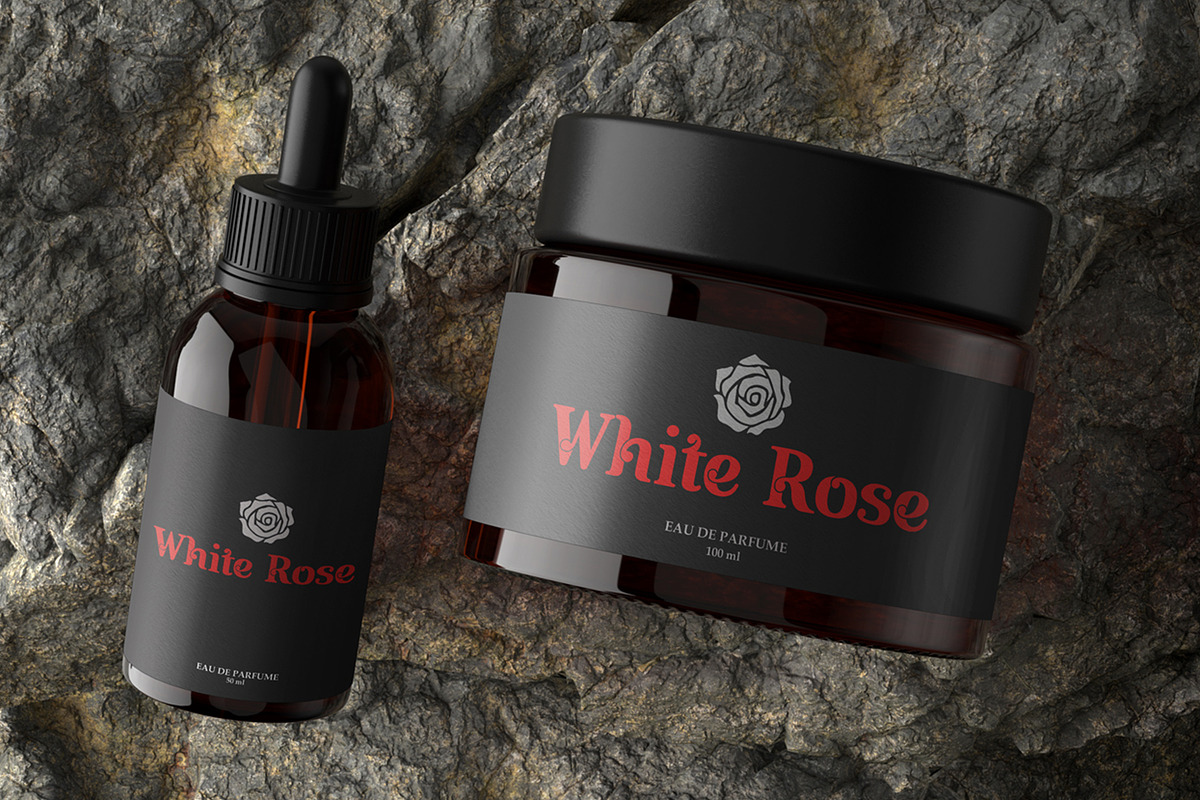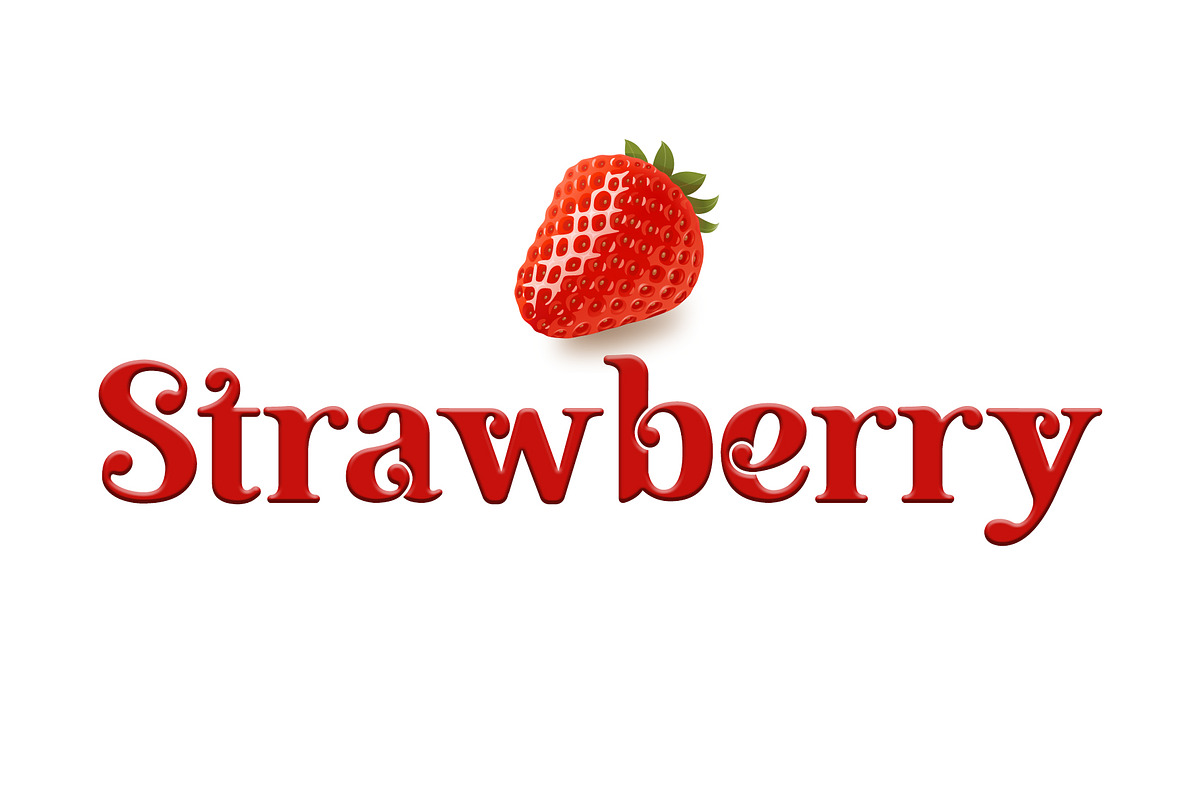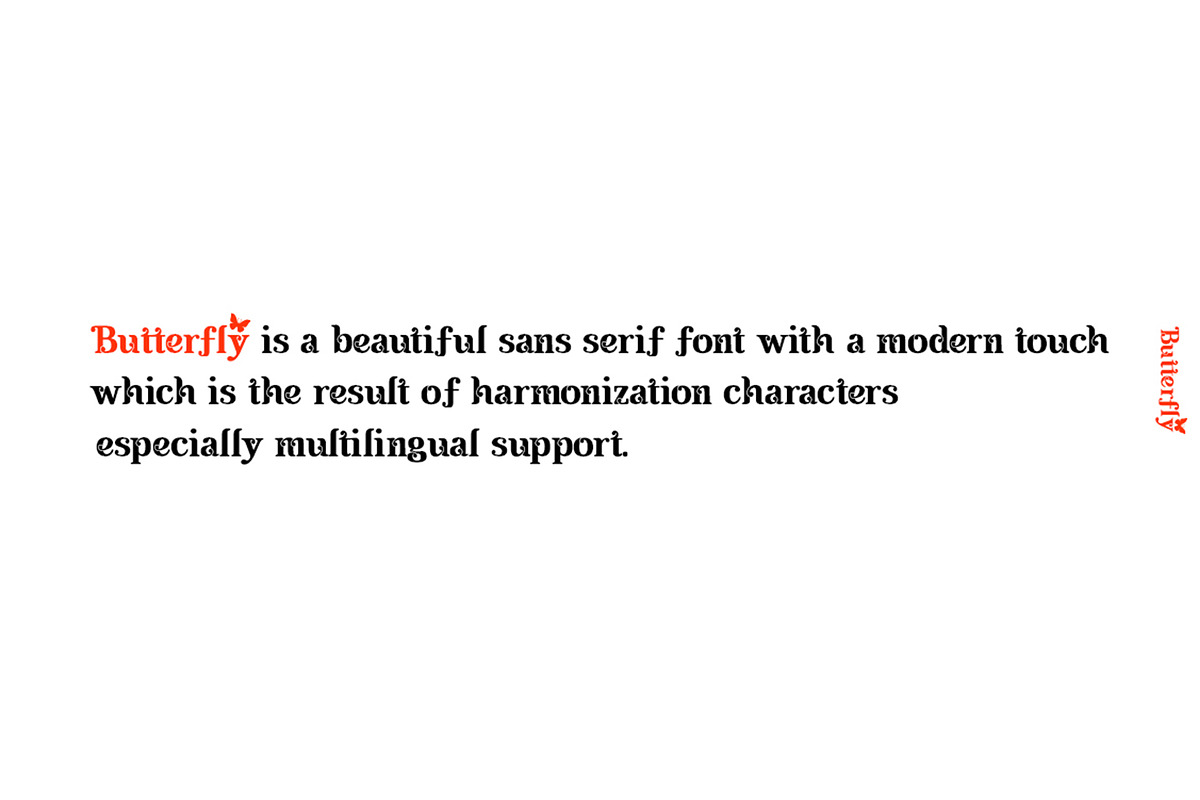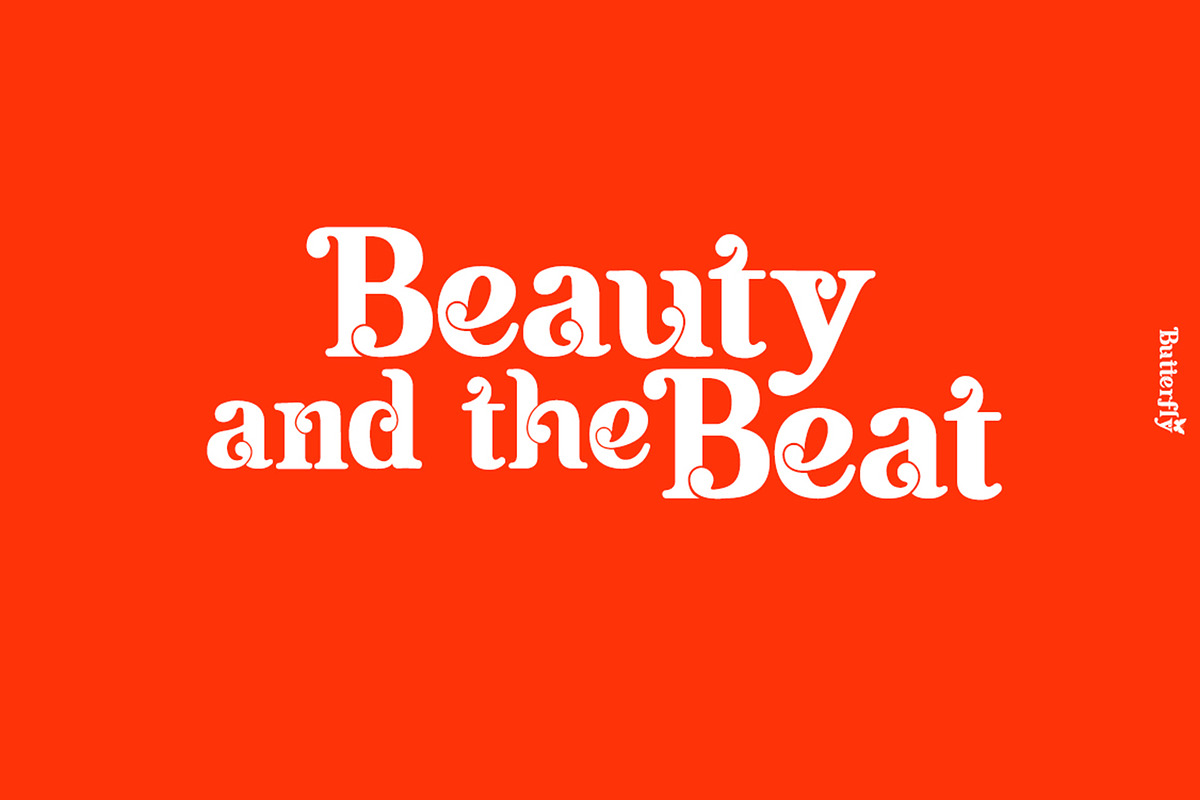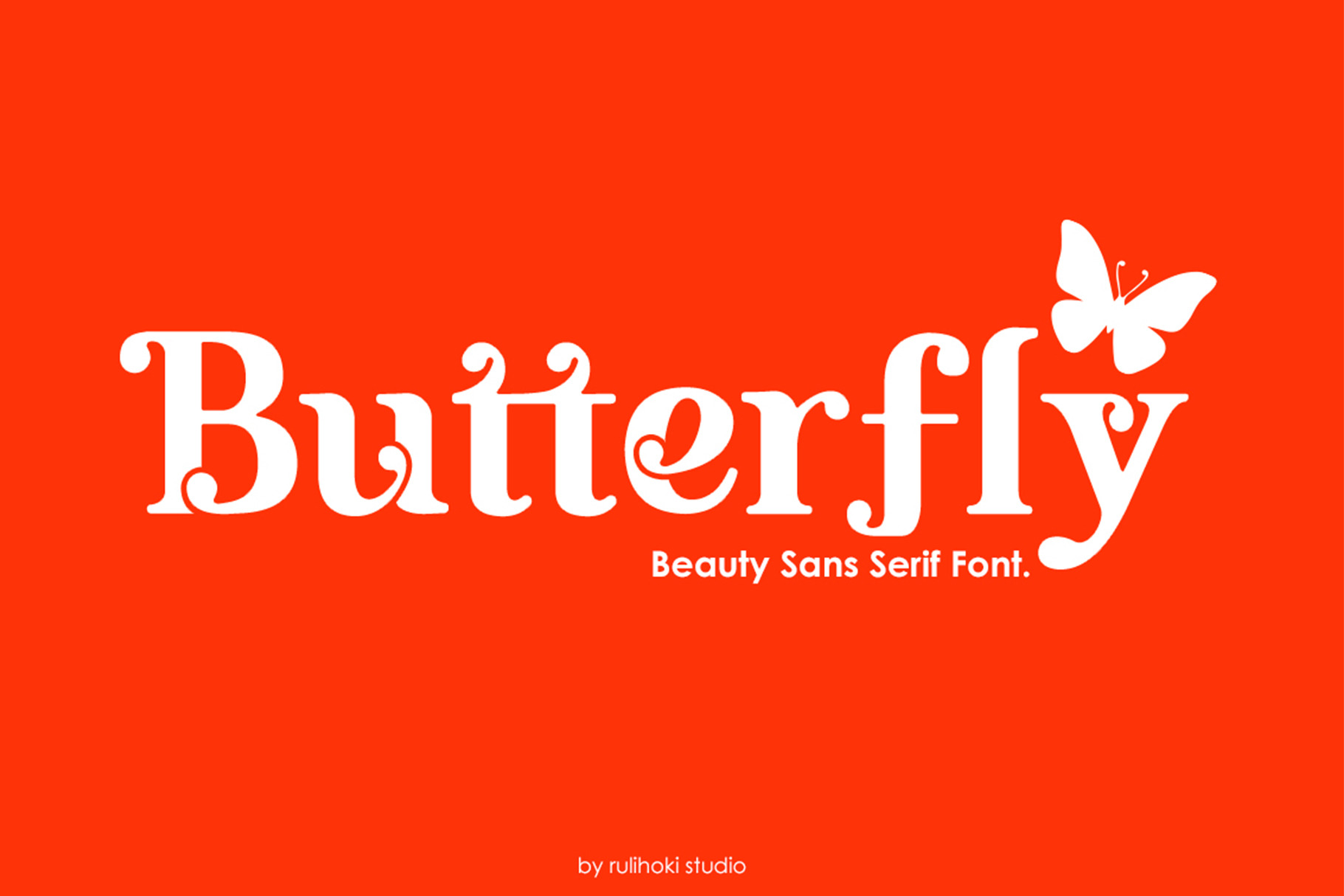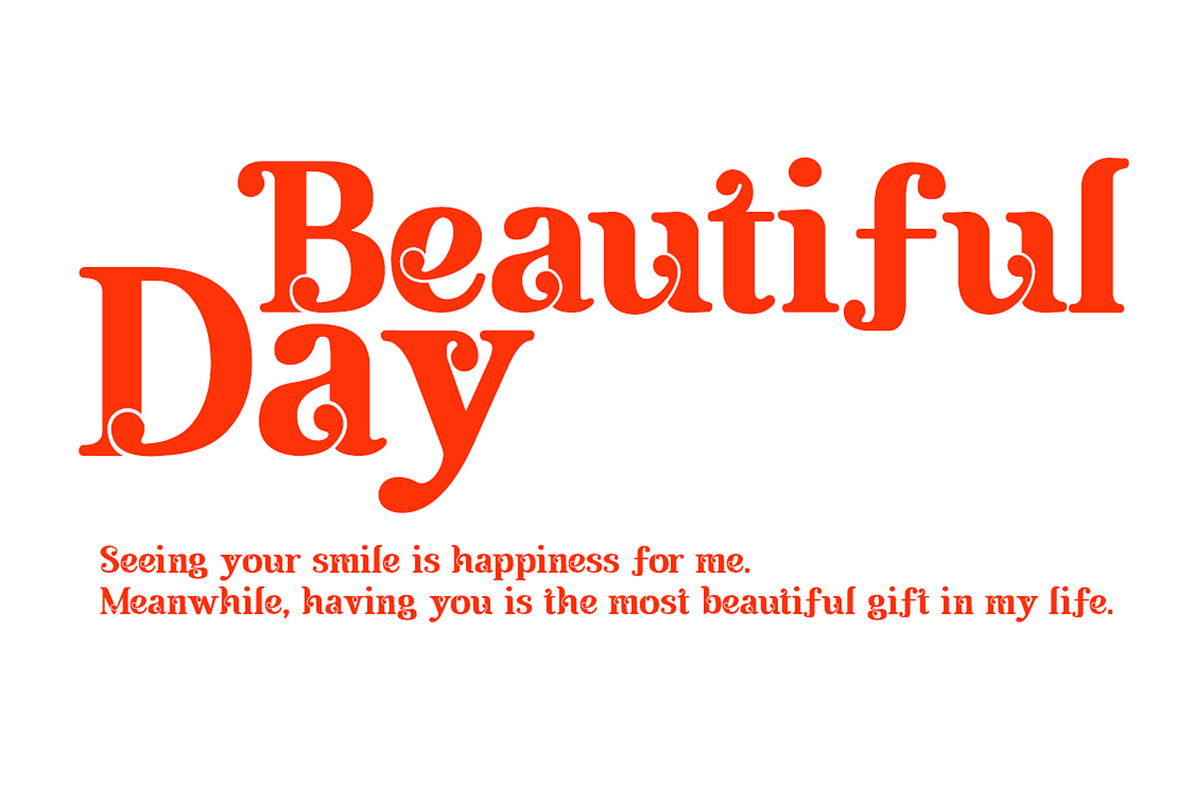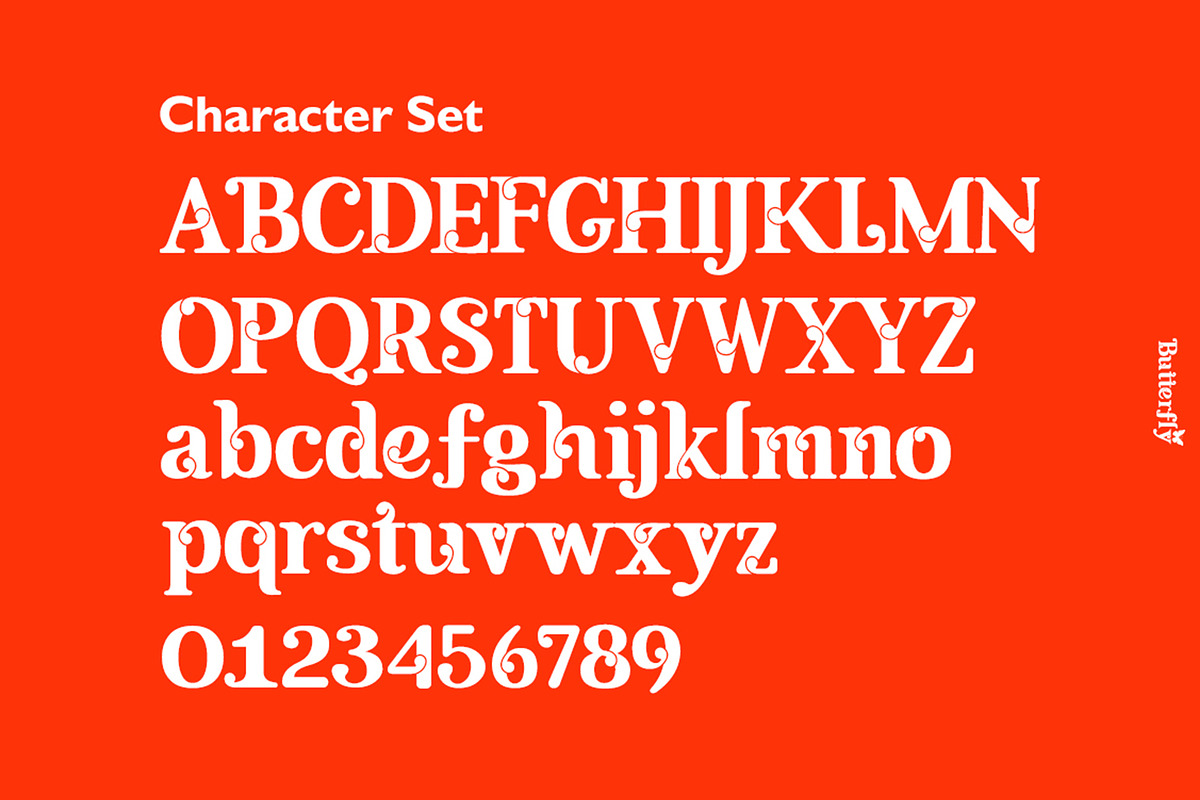
Butterfly | Beauty Sans Serif Font
Butterfly is an incredibly elegant and delicate font. It features a unique style and modern touch. It feels playfully nostalgic and delivers a unique style and charming aesthetic.
FEATURES Character Set A-Z (Uppercase & Lowercase) Numerals & Punctuations Accents.
Butterfly works are great and usefull for poster title, headline, packaging, wedding card, quotes, branding fashion and much more. Add it to your favorite creative ideas and notice how it makes them come alive! Thanks for checking out Butterfly.